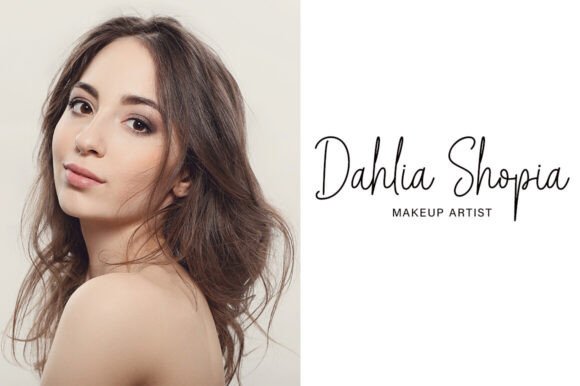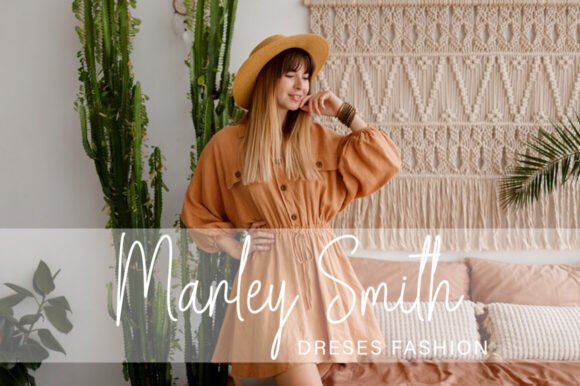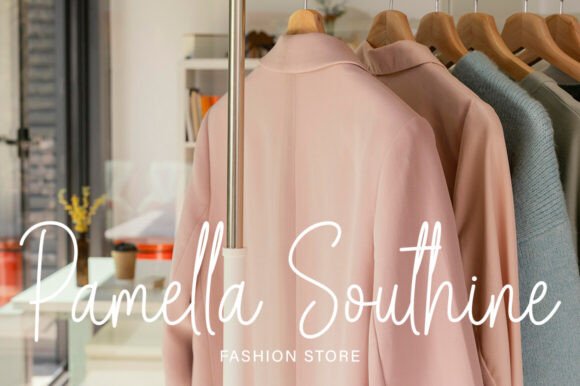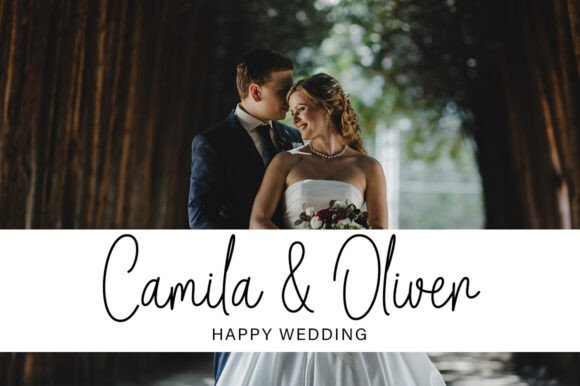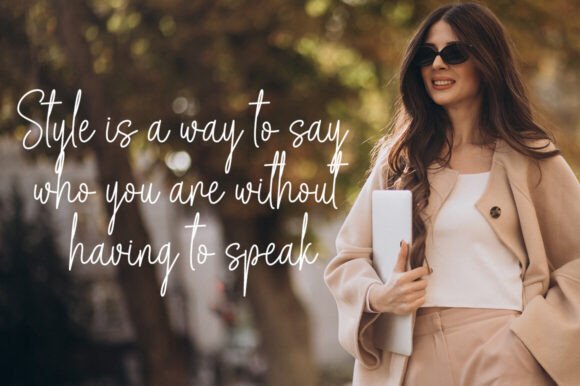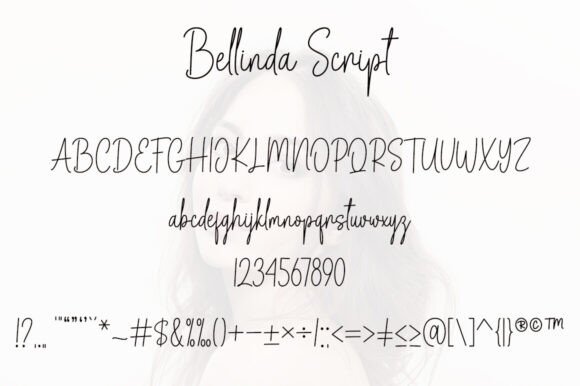
The Art of Elegant Typography: Discovering Bellinda Script Font
There’s something magical about creating a design that captures the essence of a moment – a wedding invitation that sets the tone for a lifetime of love, a logo that embodies a brand’s spirit, or a greeting card that conveys a heartfelt message. As designers, we strive to craft visual representations that evoke emotions and leave a lasting impression. The right font can be the key to unlocking that magic, and for those seeking a touch of elegance, Bellinda Script Font is a treasure trove of possibilities.
Bellinda Script Font is a modern calligraphic masterpiece that brings a sense of sophistication and refinement to any composition. With its beautiful rhythm and PUA encoded glyphs, this font is a valuable tool for designers looking to create gorgeous and classy designs for branding projects, invitations, web graphics, cards, and more. Whether you’re a seasoned pro or just starting out, Bellinda Script Font is sure to become a trusted companion in your creative journey.
- Font Family: Bellinda Script
- Unique Characteristics: Elegant script font with flowing connections and subtle flair, ideal for creative and artistic projects
- Language Support: Supports multiple languages, including Latin, Greek, and Cyrillic scripts
Bellinda Script Font Review
I’ve had the chance to work with Bellinda Script Font, and I must say, it’s a beautiful addition to any design project. ✨ The script font is elegant, refined, and perfect for creating a sense of sophistication. It’s ideal for use in invitations, wedding stationery, and any other design that requires a touch of luxury.
Here are some of the things that work well with Bellinda Script Font:
- ✨ Elegant and refined design
- ✨ Perfect for creating a sense of sophistication
- ✨ Ideal for use in invitations, wedding stationery, and other luxury designs
- ✨ Beautiful cursive style
- ⚠️ May be difficult to read in certain font sizes
- ⚠️ Limited character set, may not be suitable for large blocks of text
- ⚠️ May not be the best choice for bold or dramatic designs
Overall, I think Bellinda Script Font is a beautiful and elegant addition to any design project. While it may have a few limitations, it’s perfect for creating a sense of sophistication and luxury. With a little creativity and careful use, it can add a touch of elegance to any design.
Bellinda Script Font is ideal for creating elegant and sophisticated designs, such as:
Wedding invitations, announcements, and stationery.
Branding and marketing materials, such as logos and business cards.
Personalized gifts, such as customized picture frames and photo albums.
For the best results, use Bellinda Script Font in conjunction with high-quality images and a clean design aesthetic.